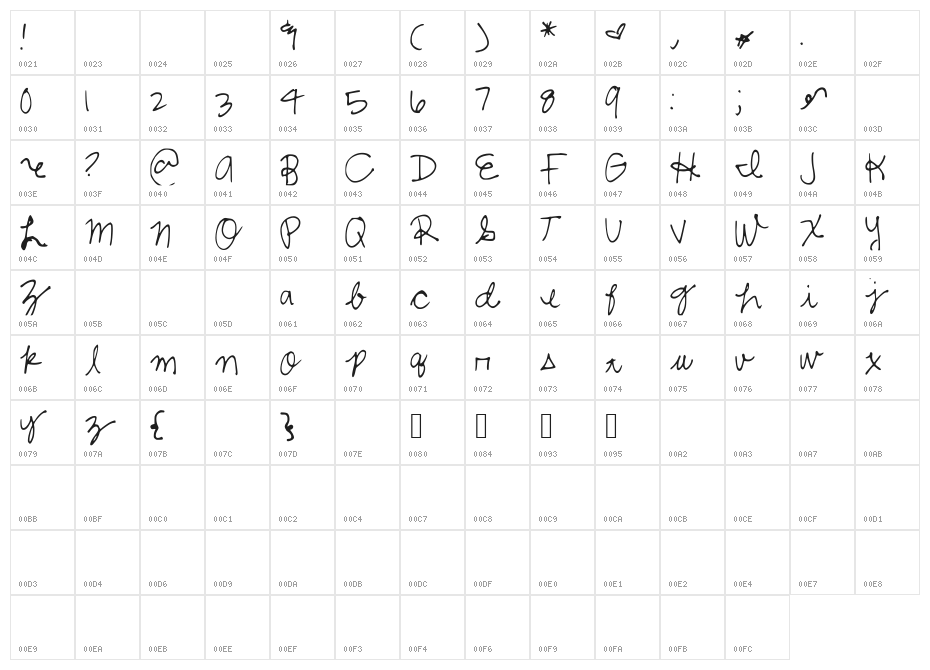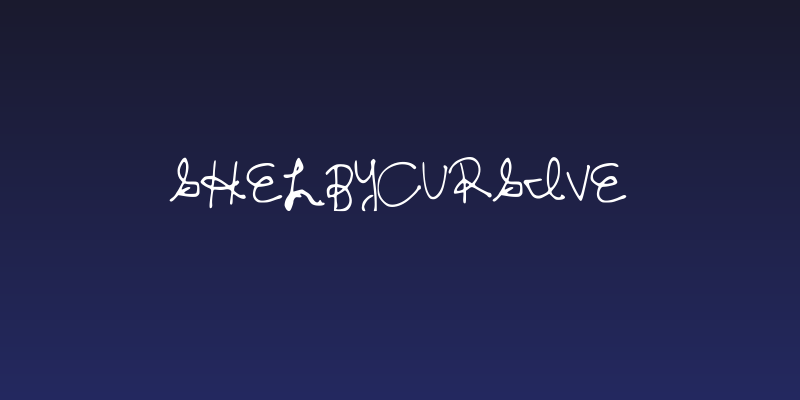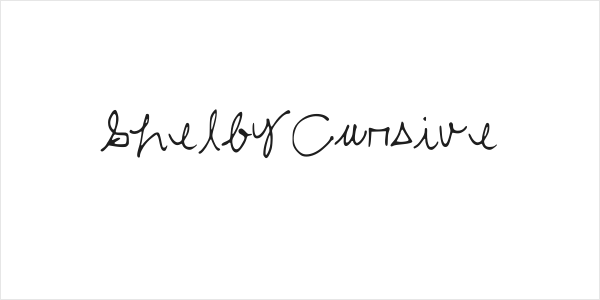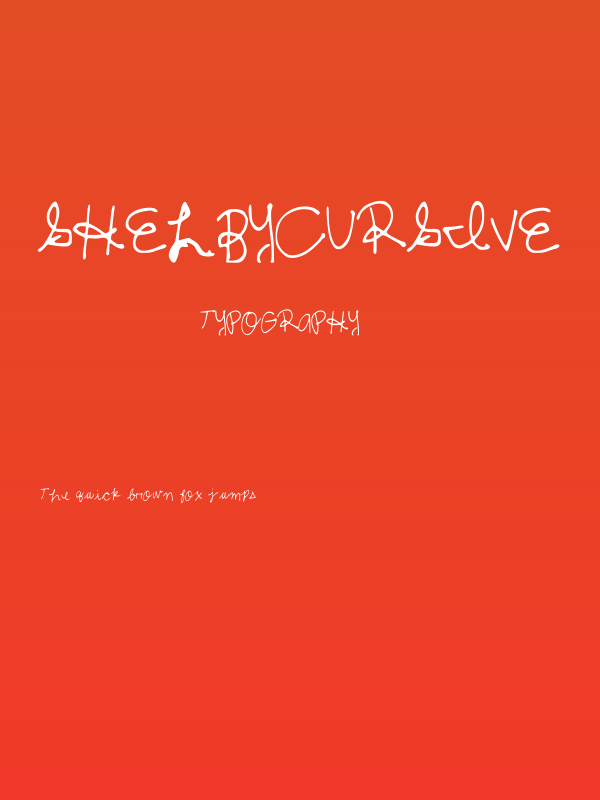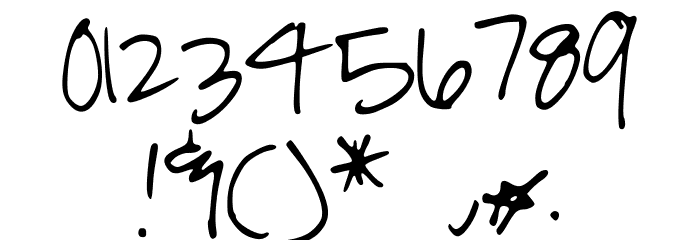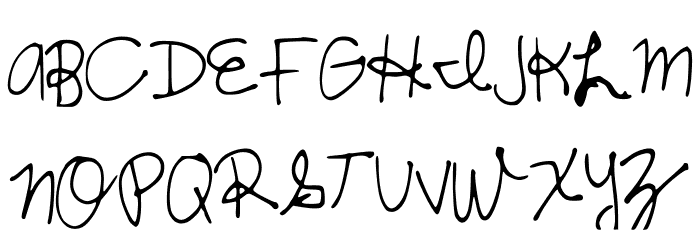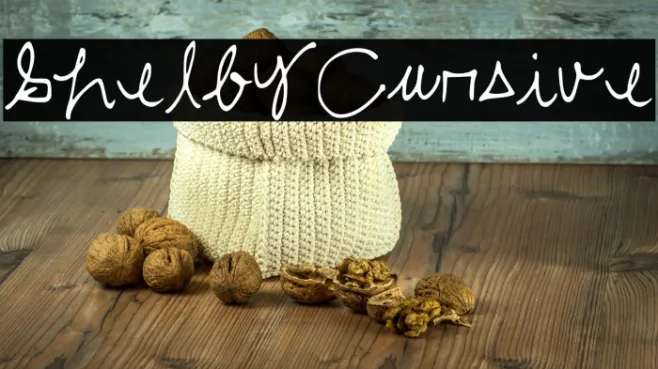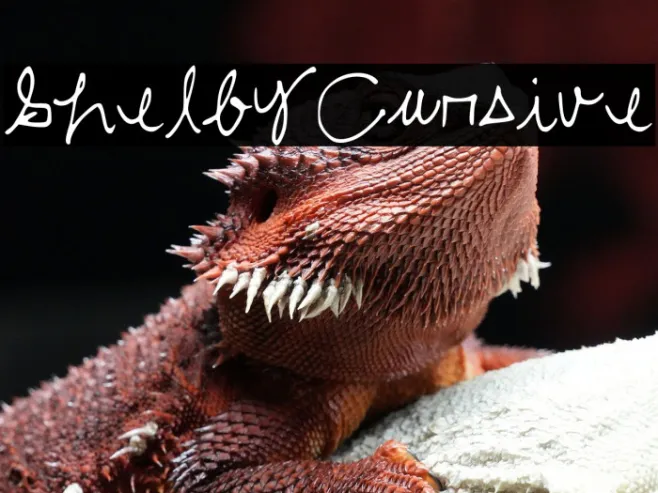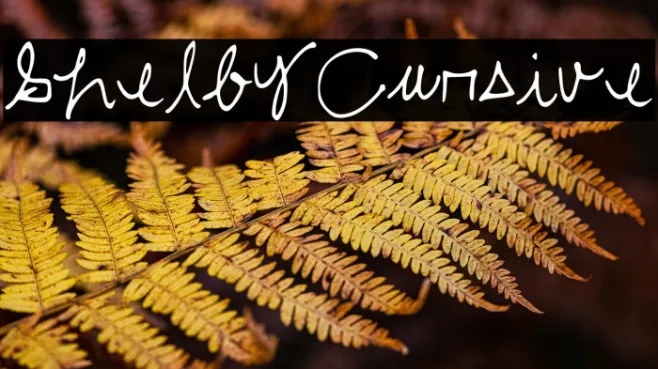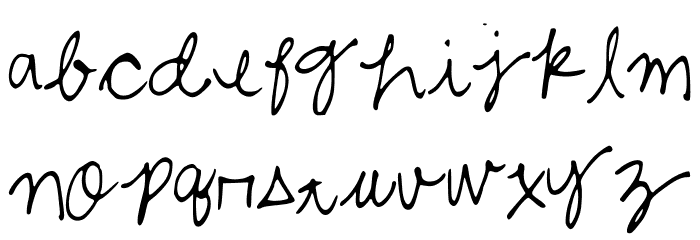
ShelbyCursive Font
ShelbyCursive Description
This font features a lively and flowing cursive style, characterized by its smooth, continuous strokes and elegant loops. The uppercase letters are distinct with a slight slant, while the lowercase letters maintain a consistent flow, enhancing readability. Numbers and special characters are crafted with the same fluidity, integrating seamlessly with the alphabet. The overall appearance is both sophisticated and approachable, making it suitable for a variety of creative applications.
| Proposed Projects | Ideal for wedding invitations, greeting cards, personal branding, and artistic projects that require a personal touch. |